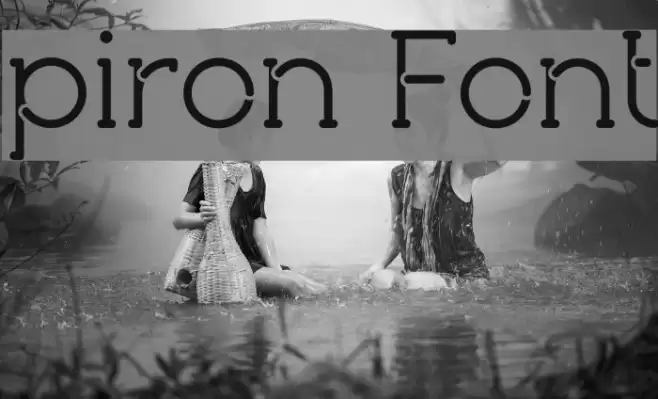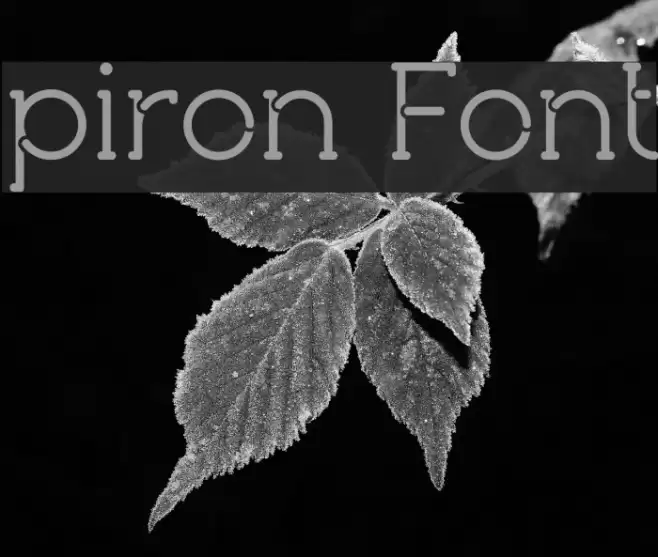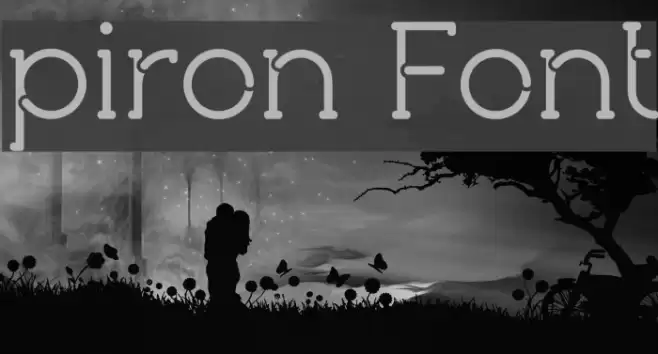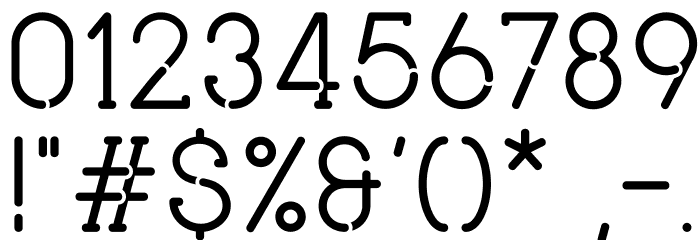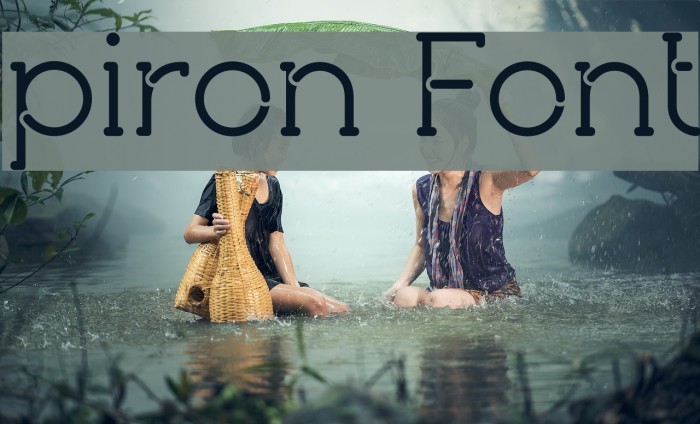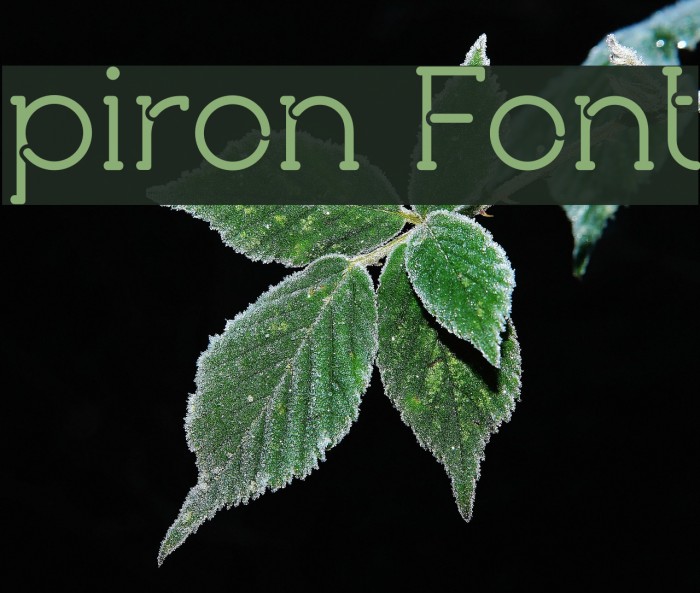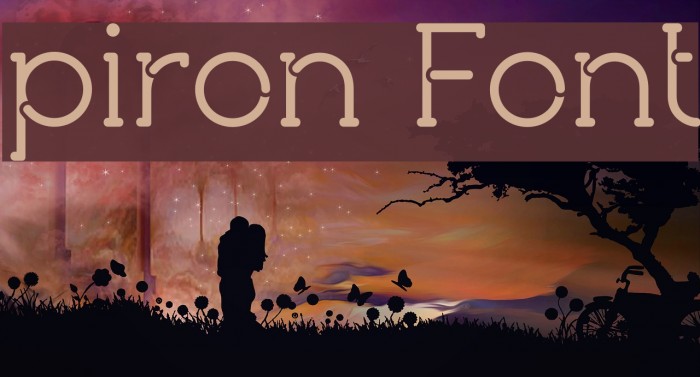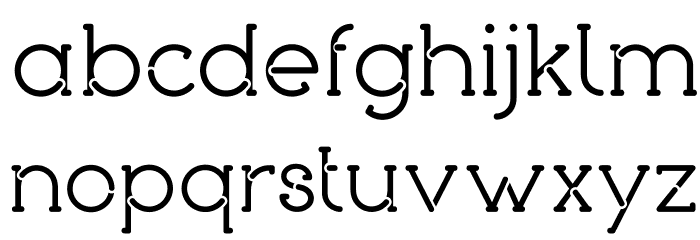
piron Font
piron Description
This font features a unique blend of modern and vintage elements, characterized by its rounded terminals and clean lines. The uppercase letters are bold and structured, while the lowercase letters maintain a playful and approachable feel. The numerals are distinct and easy to read, making them suitable for various applications. Special characters are well-designed, adding to the font's versatility. The overall appearance is both professional and friendly, making it ideal for a wide range of design projects.
A modern font with rounded terminals and clean lines, blending professionalism with approachability from Uncategorized fonts.
- Proposed Projects: Ideal for branding, advertising, and editorial design projects where a modern yet approachable look is desired.